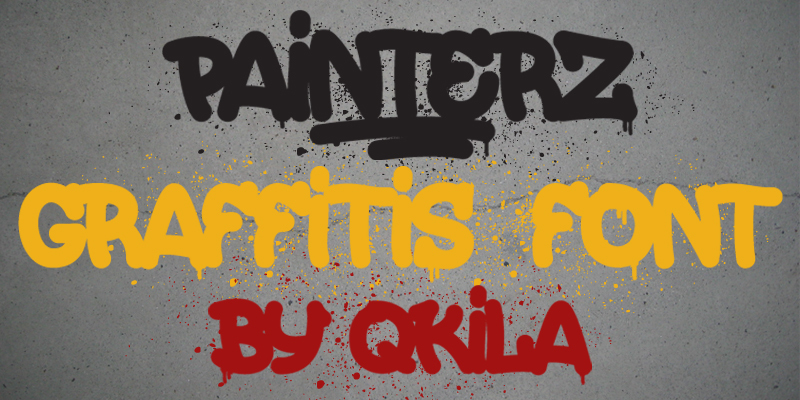
Painterz is a free graffiti script with broad, swollen letters and the packed silhouette of a hand-painted tag. Its strokes shift in width, with soft corners and uneven joins that keep the lettering lively. Small paint drips add a convincing sprayed-wall detail without overwhelming the rounded forms.
Streetwear branding is its strongest setting, especially for labels built around skate, hip-hop, or mural culture. The same dense shapes suit music posters, event graphics, and merchandise, where the lettering can become part of the artwork rather than a neutral caption. Across these uses, the tag-like flow and occasional drips connect the type directly to urban paint and marker work.
Painterz